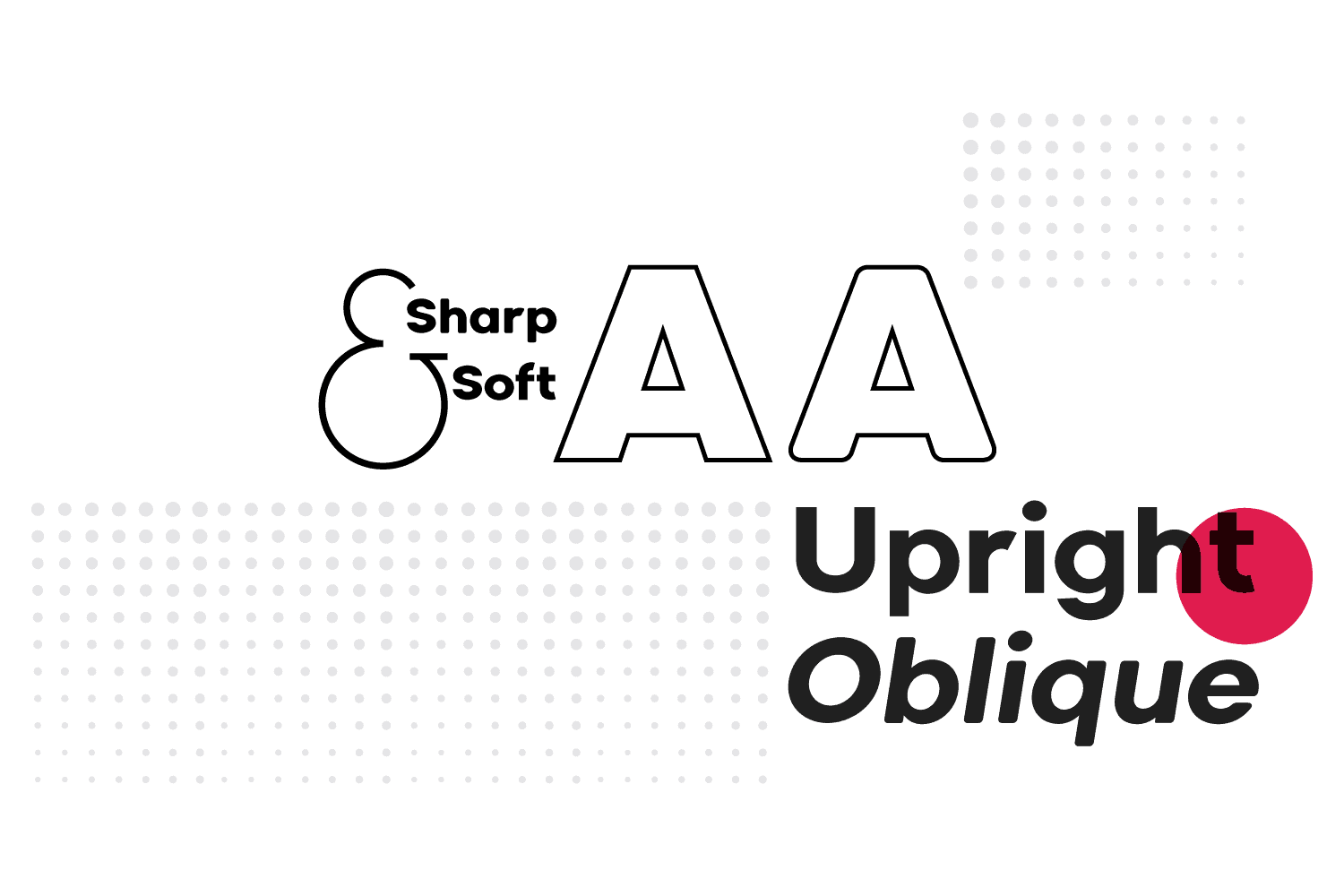
Geometric Sans Serif Font – ACEH Font Family Pack, 36 Font Variations
The Aceh font family is a neat geometric sans-serif font with a modern, clean and readable concept, featuring 2 versions, one with sharp and one with soft shapes, 9 weights, and delivered with files for desktop as well as web use so you can apply this typeface to your editorial projects, web designs, UI projects, display compositions and print templates, and maintain a consistent typographic identity across all media while using a professional, powerful looking sans-serif!
Aceh features 36 font variations, 9 font weights including Thin, Light, Regular, Bold and Blacks as well as uprights and obliques – the files in this font family package are delivered in OTF format for desktop use, with a huge variety of OpenType features including standard and discretionary ligatures, localization, numerators, denominators, tabular figures and many more
• Aceh and Aceh Soft versions
• 36 font variations
• Upright & oblique fonts
• 9 distinct weights
• Thin, extralight, light, Regular, medium, semibold, bold, extrabold & black
• Geometric sans-serif font design
• OpenType features – standard & discretionary ligatures, localization, numerators, denominators, tabular figures & more